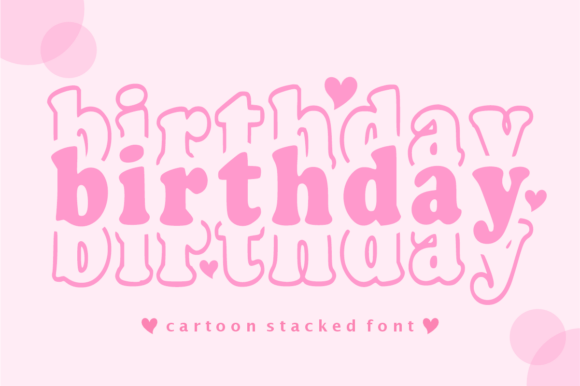
First Impressions: A Festive Font that’s Pure Joy
The Birthday font is a vibrant display font that features a trendy stacked cartoon effect, making it perfect for designs that need to shout “Happy Birthday!” with a touch of modern flair. Its overlapping layers create a dynamic, 3D-inspired look that’s both playful and bold. Whether you’re crafting custom cake toppers, festive apparel, or eye-catching invitations, Birthday brings an instant cheerful vibe to every project.
Main Features: What’s Included 🎁
- 🔠 Uppercase Letters – Bold, bubbly, and beautifully stacked.
- 🔢 Numbers (0-9) – Festive numerals perfect for milestone ages.
- 🔣 Basic Symbols – Essential punctuation for all your celebratory messages.
Honest Review: The Good and the Not-So-Good 🤔
- ✨ The unique stacked cartoon effect adds a fun, playful touch to any design.
- ✅ The font is highly legible, even at smaller sizes.
- 🎉 The festive vibe is perfect for birthday designs and party-themed projects.
- ⚠️ The font may not be suitable for body text or longer paragraphs, as it’s designed for headlines and titles.
- 🤔 Some users may find the stacked effect a bit tricky to work with in certain design software.
The Designer Inspiration Behind Birthday Font 🎨
The Birthday font was designed with one goal in mind: to create a font that captures the excitement and joy of celebrating a special day. The designer wanted to create a font that’s not only fun and playful but also easy to read and versatile. With its unique stacked effect and bold, bubbly letters, the Birthday font is sure to bring a smile to anyone’s face.